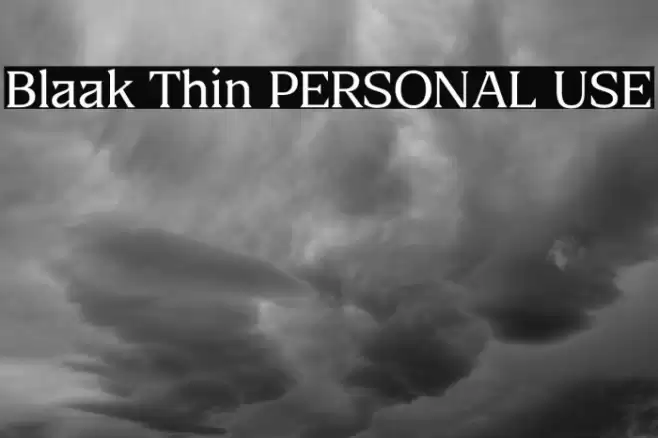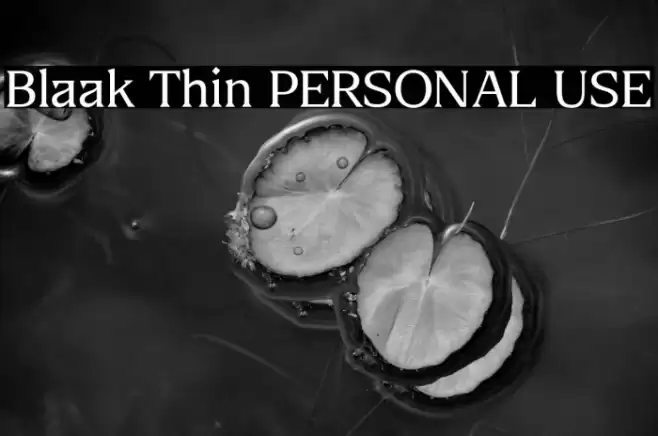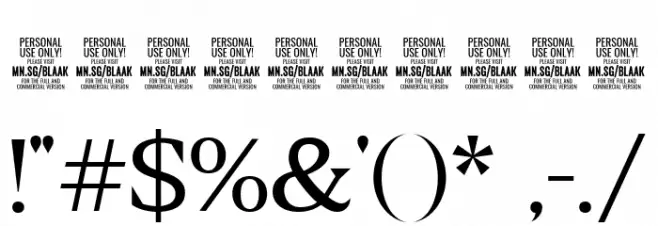
Blaak Thin PERSONAL USE Font
Blaak Thin PERSONAL USE Description
This font features a sophisticated and elegant serif style, characterized by its thin strokes and high contrast between thick and thin lines. The uppercase letters exhibit a classic and refined appearance, while the lowercase letters maintain a graceful and fluid form. The special characters are designed with the same attention to detail, ensuring consistency throughout. The font's overall aesthetic is both modern and timeless, making it suitable for a variety of design applications.
A thin, elegant serif font with high contrast and classic styling from Regular fonts.
- Proposed Projects: Ideal for luxury branding, editorial design, wedding invitations, and high-end product packaging.
- Weight: Light
- Overall Style: Classic
- Use Case: Headlines, Logos, Editorial design